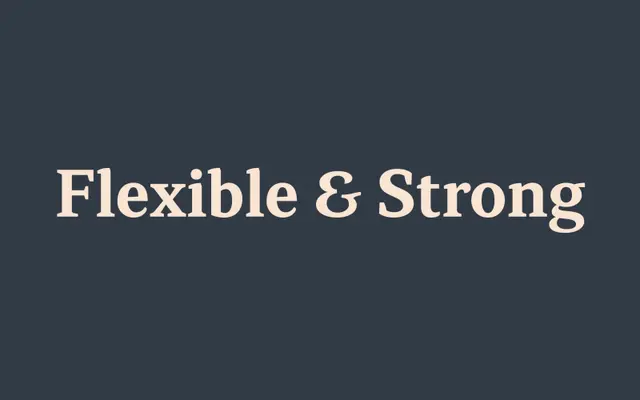
Atiza Text
The Designers Foundry · Pablo Bosch
A compact three-style serif by Pablo Bosch, built around a tall x-height and asymmetrical serifs for reliable legibility at small text sizes.
Designed by Pablo Bosch and published through The Designers Foundry, Atiza Text is an editorial serif optimised for long-form reading. Low stroke contrast and strong asymmetrical serifs keep the type stable at small sizes, while brush-stroke-like terminals become apparent at display scales. The family covers three styles, Regular, Italic and Bold, with 816 glyphs and broad OpenType support including small caps, fractions, tabular figures and multiple ampersand alternates across 200-plus Latin languages.
A contemporary serif with tall x-height, low contrast and strong asymmetrical serifs, designed explicitly for editorial and long-text legibility at small sizes.